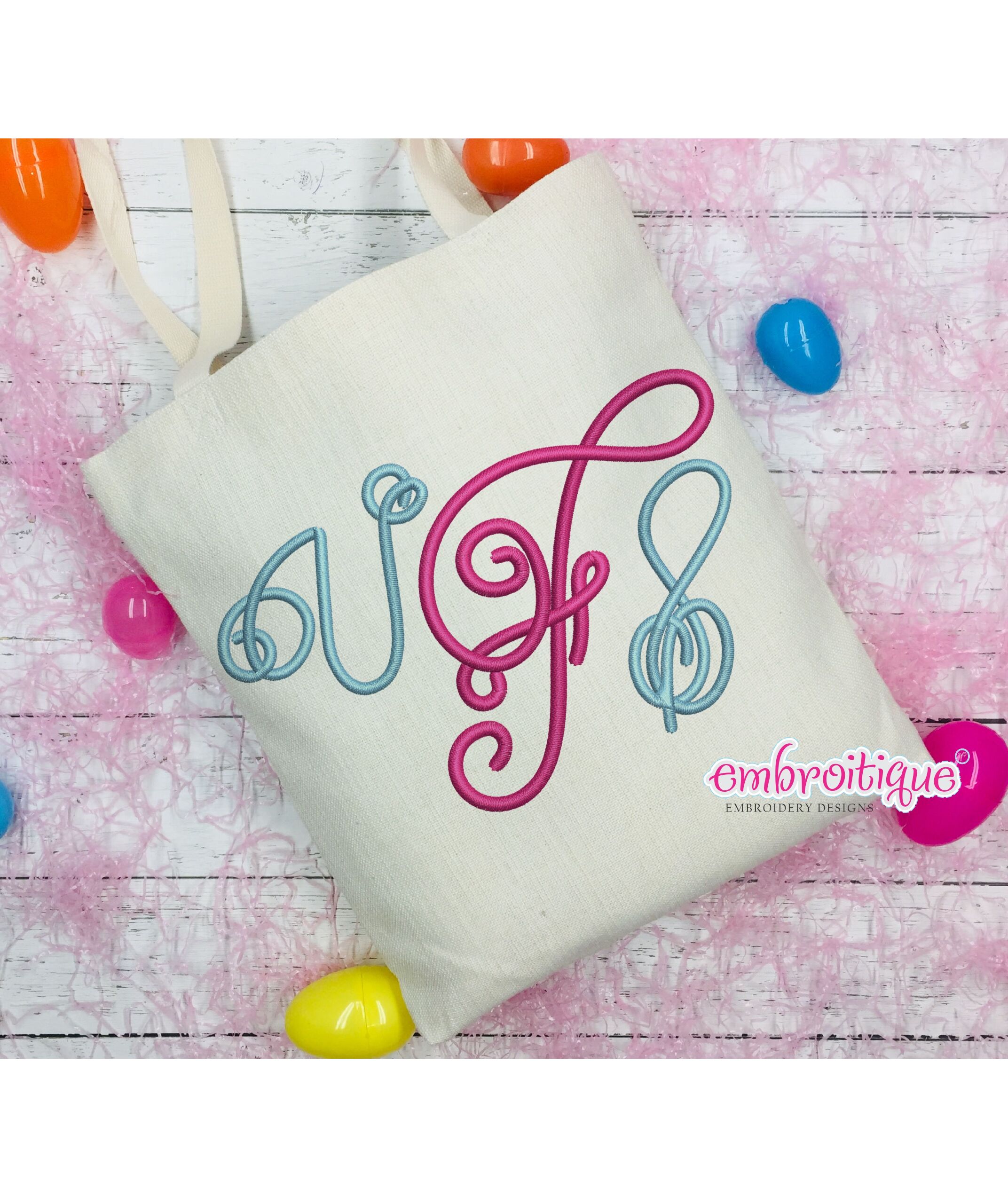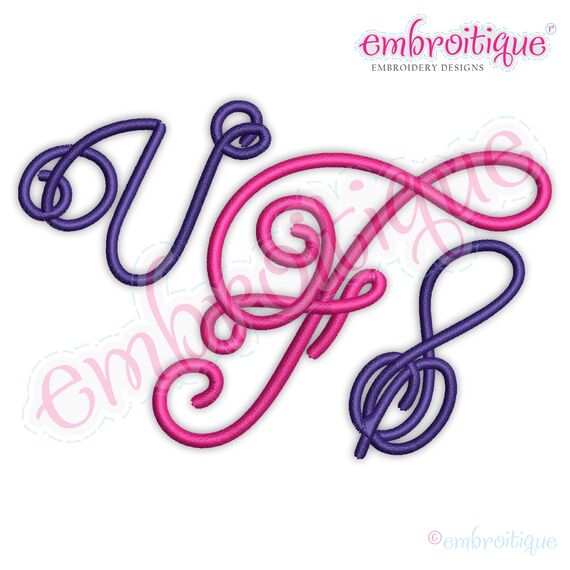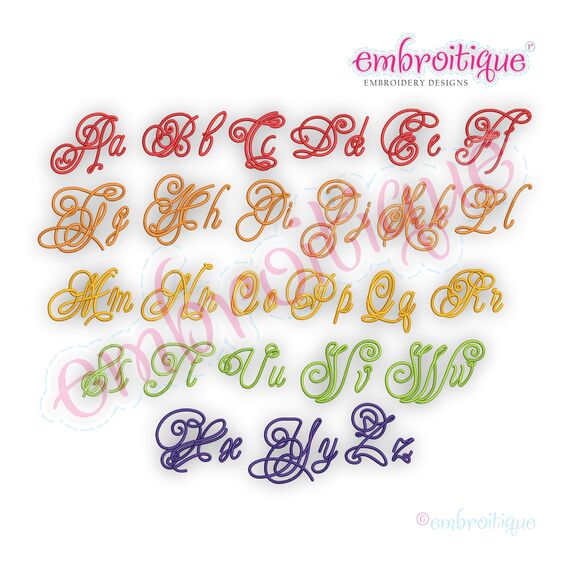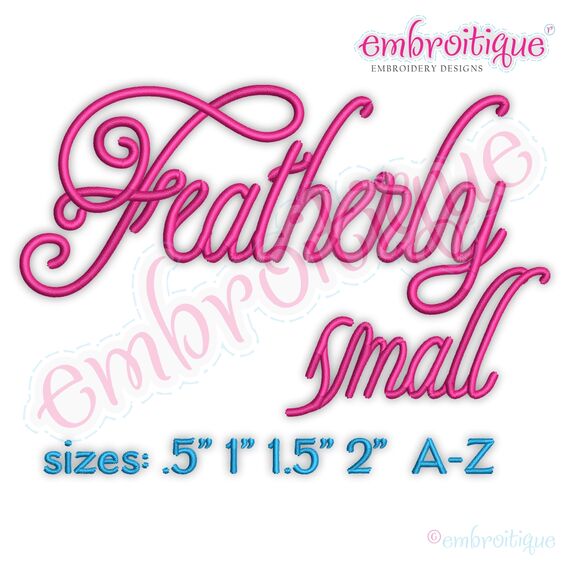
Featherly Monogram Set -Small Sizes - Script Italics Font
Gorgeous italics font that includes Aa-Zz. Small set includes sizes 5", 1.0", 1.5", 2.0". Also available in medium sizes (sold separately)